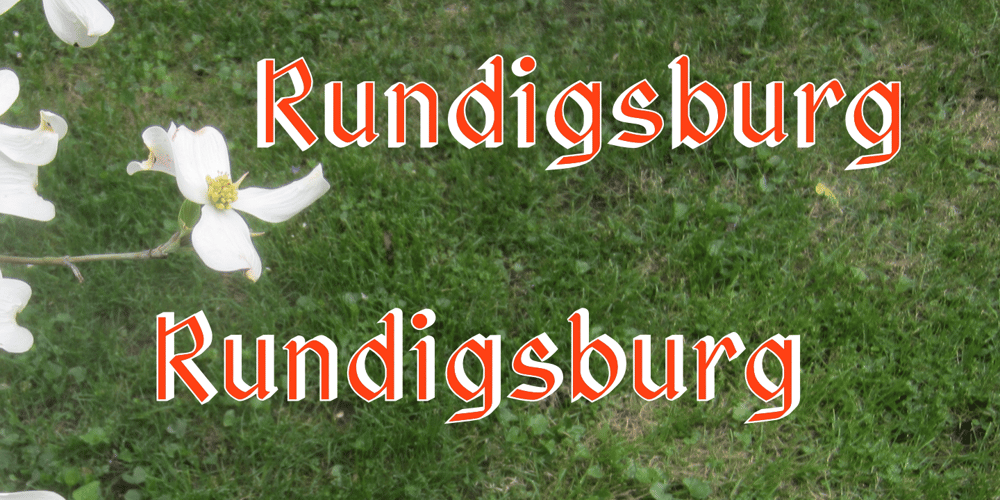
Rundigsburg
Rundigsburg font
Rundigsburg Font Family was designed by Robert Schenk and published by Ingrimayne Type. Rundigsburg contains 12 styles and family package options. Is Rundigsburg a calligraphic face morphing into sans serif or sans serif reverting back to a medieval, calligraphic face? The letters are angular and some retain traces of older letter forms, but the ornamentation is gone. Rundigsburg is decorative but also very legible, suitable for both display and some text purposes. The family has four weights, each with an italics style. There are two shadowed versions and each has an “inside” style designed for uses in layers with its shadowed style to add color. These “inside” style are similar to the light style but the spacing matches its shadowed complement. Among Rundigburgs OpenType features are a few basic fractions and some alternative letter forms.